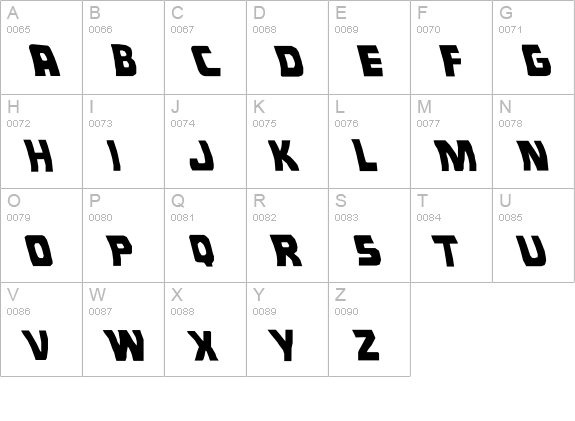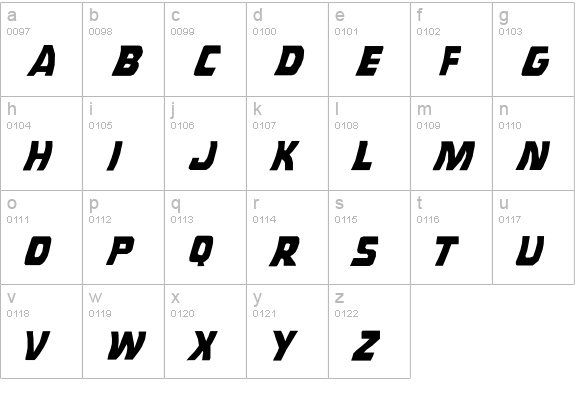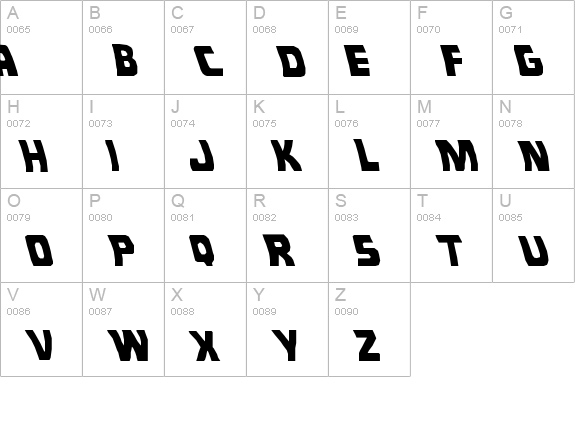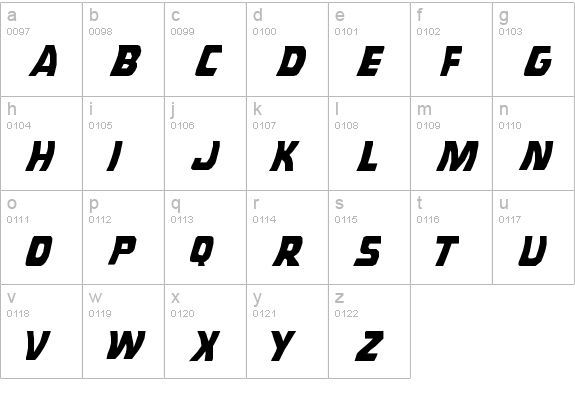
Introducing the Back To The Future font, a stunning typeface that takes inspiration from the iconic film trilogy. This font effortlessly captures the essence of time travel and nostalgia, bringing a touch of futuristic charm to any design project. With its sleek and streamlined letterforms, Back To The Future font adds a sense of adventure and excitement to your creative endeavors. Featuring a perfect blend of classic and contemporary design elements, this font is truly timeless. Its clean lines and bold strokes make it highly legible and versatile, ensuring that it stands out in both digital and print mediums. Whether you're designing a poster, logo, website, or any other project, the Back To The Future font will elevate your work to a whole new level. What makes this font even more remarkable is that it is freely available to download at FontsMarket.com. Yes, you read that right! You can add this incredible font to your collection without spending a dime. FontsMarket.com is a trusted source for high-quality fonts, and they proudly offer the Back To The Future font as a complimentary download. So, why wait? Embrace the spirit of adventure and nostalgia with the Back To The Future font. Download it today from FontsMarket.com and let your creativity soar to new heights. Whether you're a designer, a film enthusiast, or simply someone who appreciates great typography, this font is a must-have in your arsenal. Unleash the power of time travel on your designs and leave a lasting impression with the Back To The Future font.